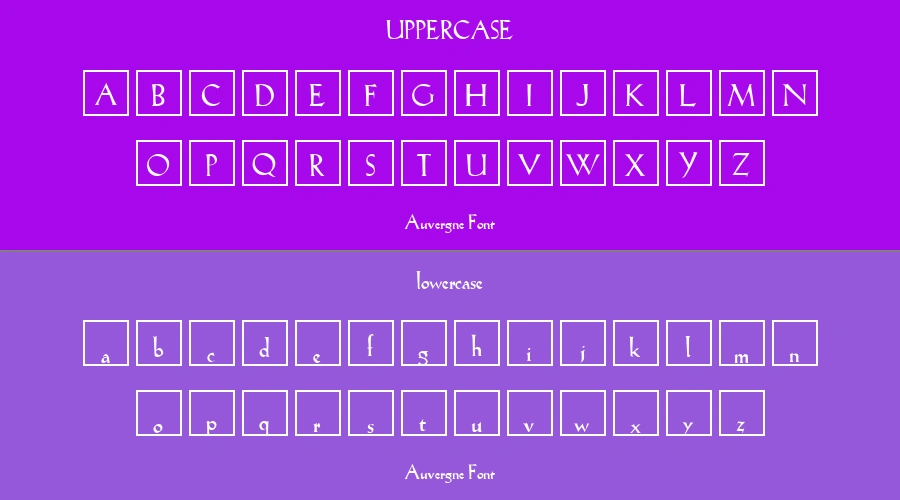
About Auvergne Font
When typographic excellence matters most, Auvergne Font delivers through its thoughtful blend of original character and versatility. Specially crafted for scientific journals, it offers the craftsmanship and refinement required for sophisticated design work. Every detail serves a purpose.
The character set showcases thoughtful details like graceful curves alongside functional oldstyle figures. This proves especially valuable in packaging, where large format rendering directly influences results. Particular attention was paid to stroke modulation and technical innovation during development.